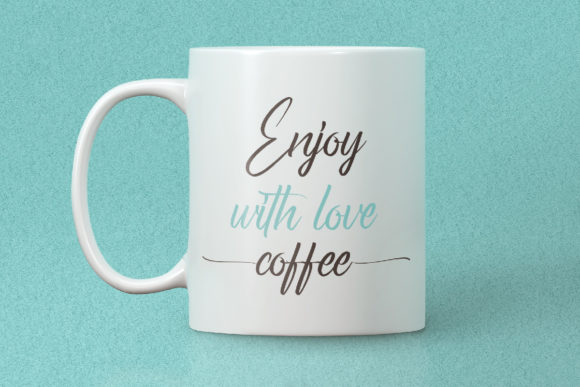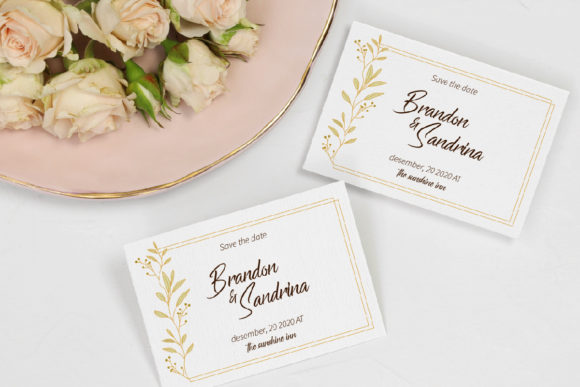
About Bartley Green Font
Introducing “Bartley Green,” a beautiful handwritten font crafted to elevate your designs with its charm and elegance. Perfect for a wide range of projects, including weddings, branding titles, books, social media posts, flyers, headings, logos, branding designs, quotes, products, cards, stationery, invitations, and more, Bartley Green adds a touch of sophistication to any design endeavor.
With its graceful strokes and well-balanced characters, Bartley Green exudes warmth and personality, making it the perfect choice for projects that require a personal touch. Whether you’re creating wedding invitations that speak to love and romance, branding titles that exude professionalism, or social media posts that capture attention, this font brings a sense of beauty and refinement to every project.
With PUA encoding, accessing the wide array of glyphs and swashes is effortless, allowing you to customize your designs with ease. Whether you’re adding decorative flourishes, stylish swashes, or other embellishments, Bartley Green offers endless possibilities for creative expression.
Experience the versatility and beauty of Bartley Green and watch as it transforms your designs into stunning masterpieces. Whether you’re a seasoned designer or a creative enthusiast, this font invites you to explore new avenues of creativity and express yourself with confidence and style.
Unlock the full potential of your designs with Bartley Green and let its handwritten charm inspire you to create unforgettable designs. With its timeless elegance and versatile nature, this font is sure to become a beloved addition to your design toolkit, adding a touch of sophistication to every project.